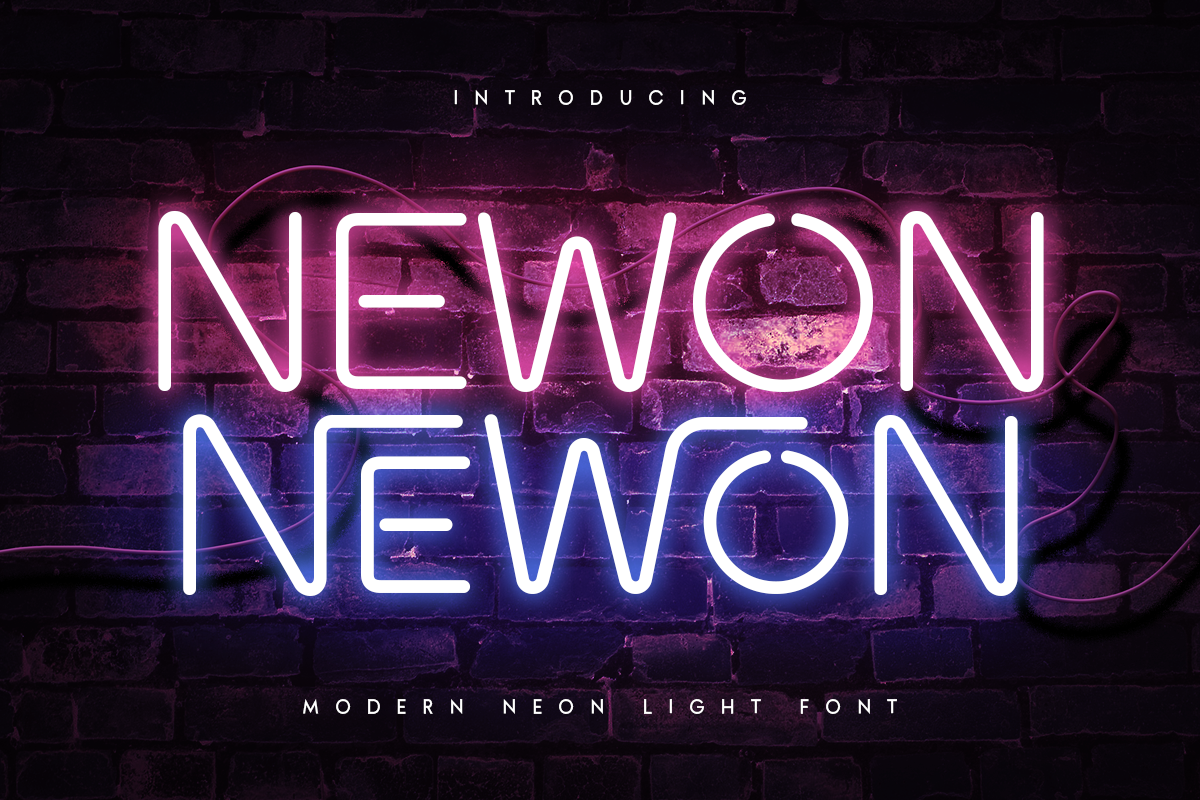
The Newon - Modern Neon Light Font Free Download is a vibrant and eye-catching typeface designed to capture the glowing allure of neon lights. With its sleek, futuristic design, this font is perfect for creating bold, illuminated text for projects related to entertainment, nightlife, advertising, and more. Whether you're working on a club poster, a sign, or a digital design, Newon brings a modern and electrifying vibe to your work.
Newon - Modern Neon Light Font Free Download is ideal for designers who want to create attention-grabbing designs with a glowing, contemporary look. Its striking neon effect makes it perfect for promotional materials, digital signage, and trendy brand identities. Download this stunning font today and light up your designs with a modern neon glow!